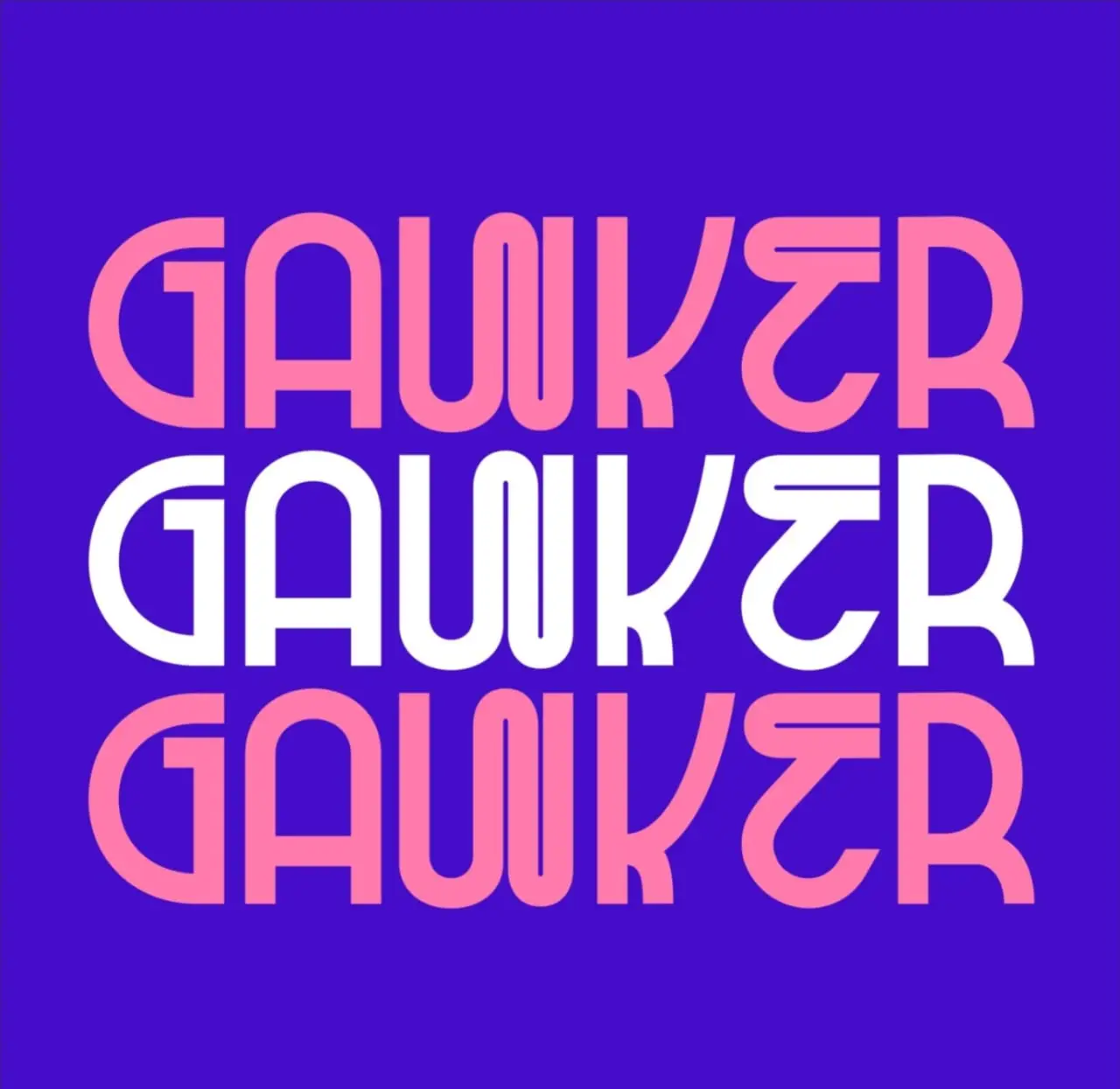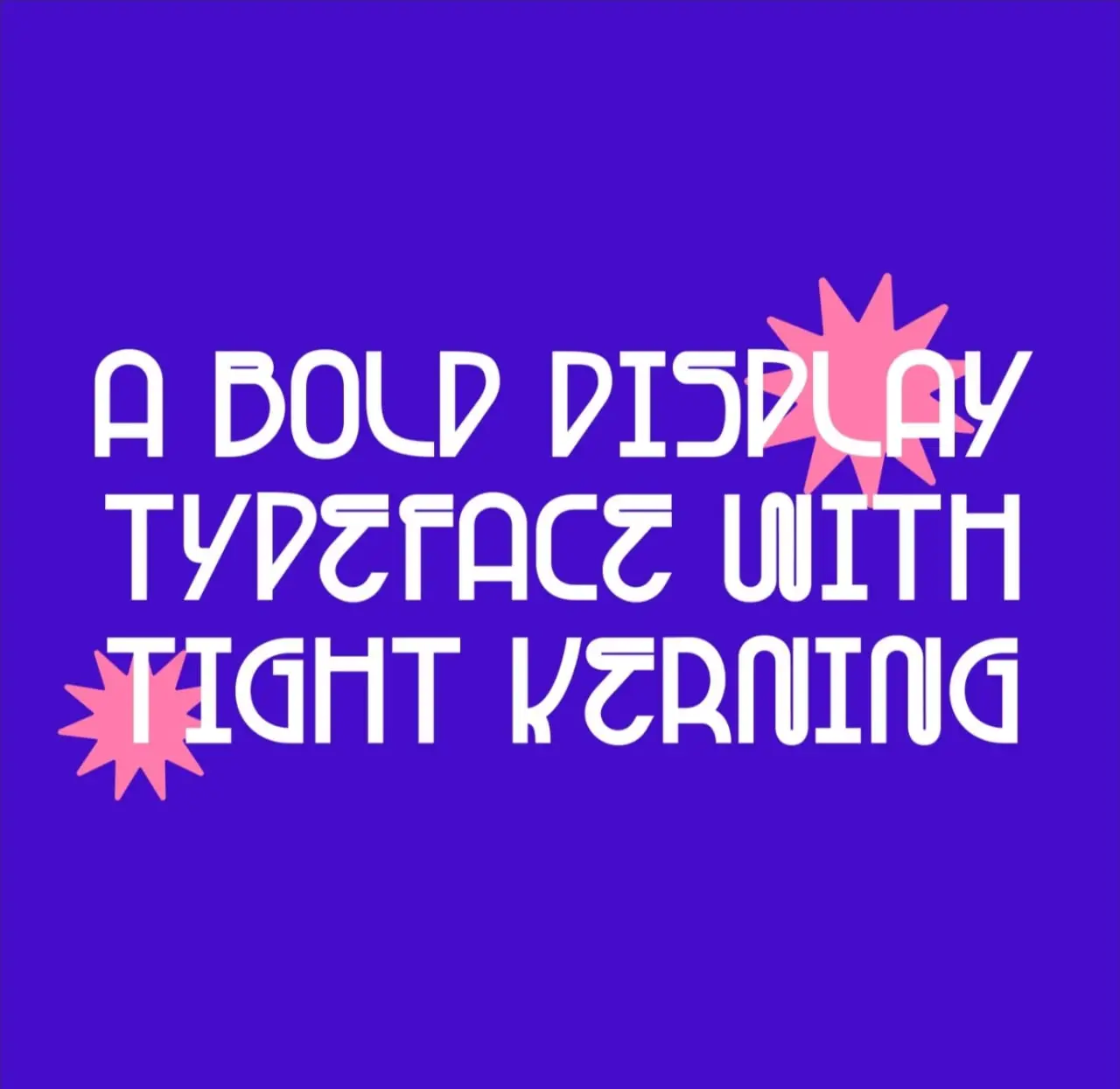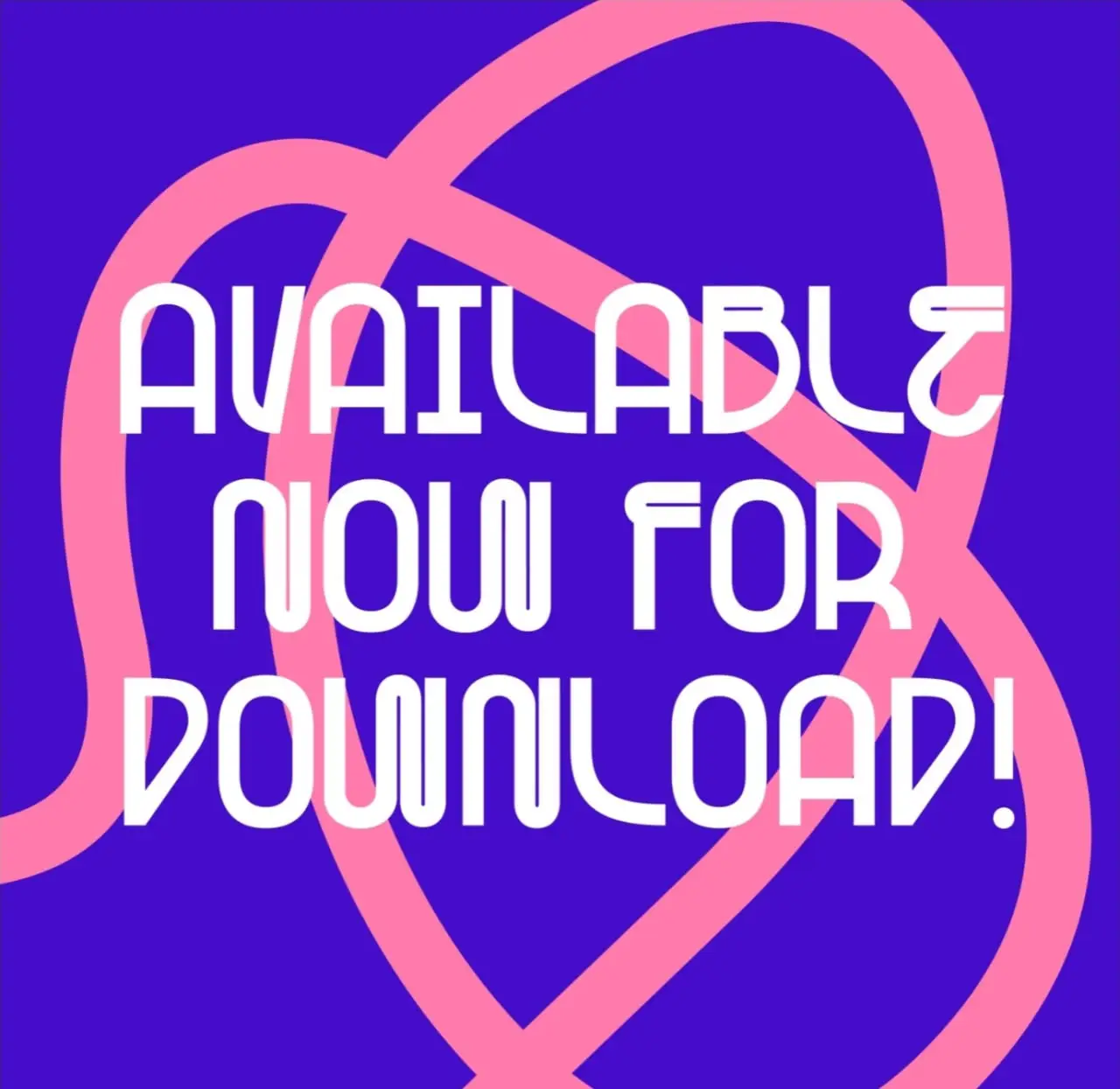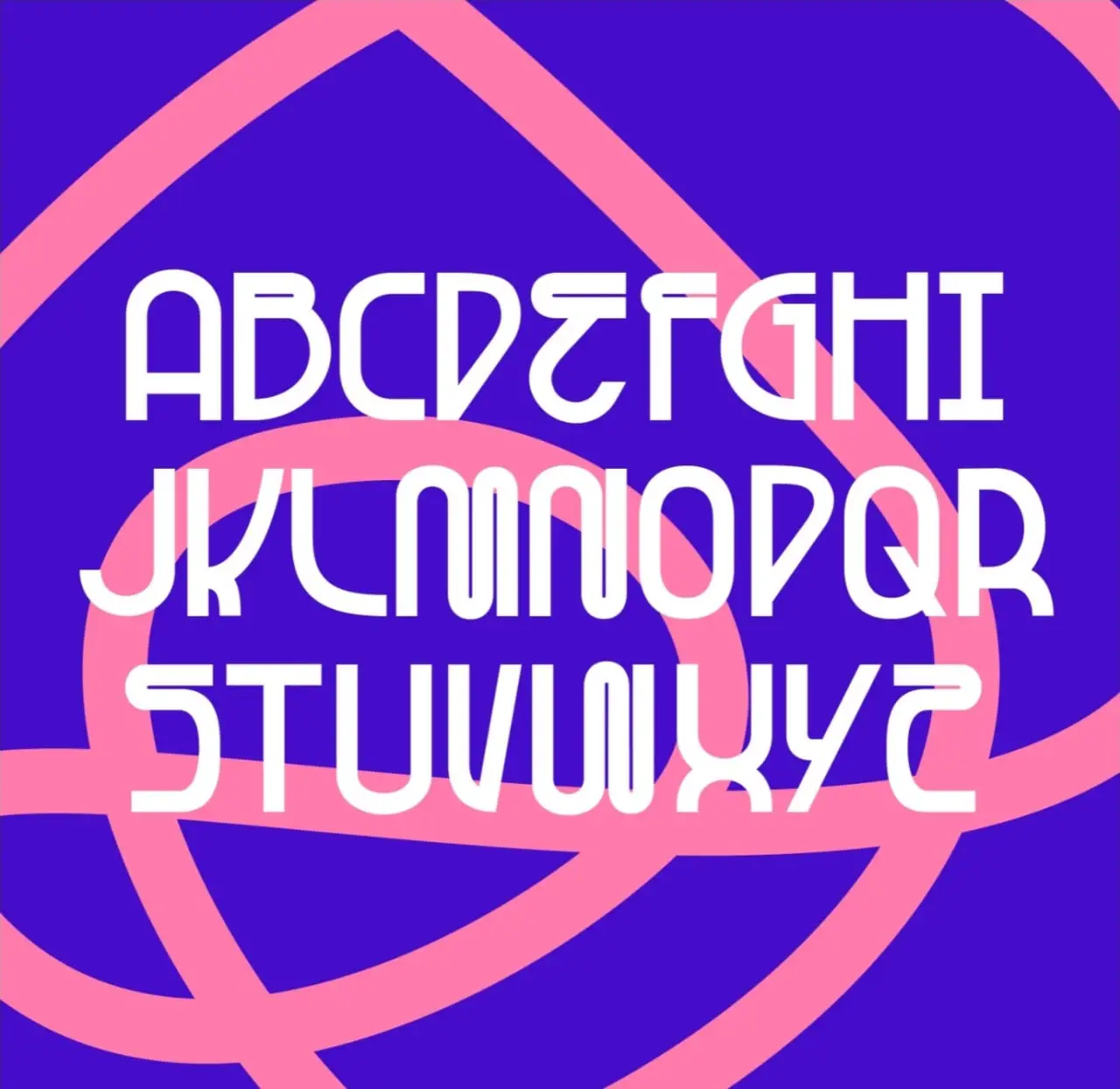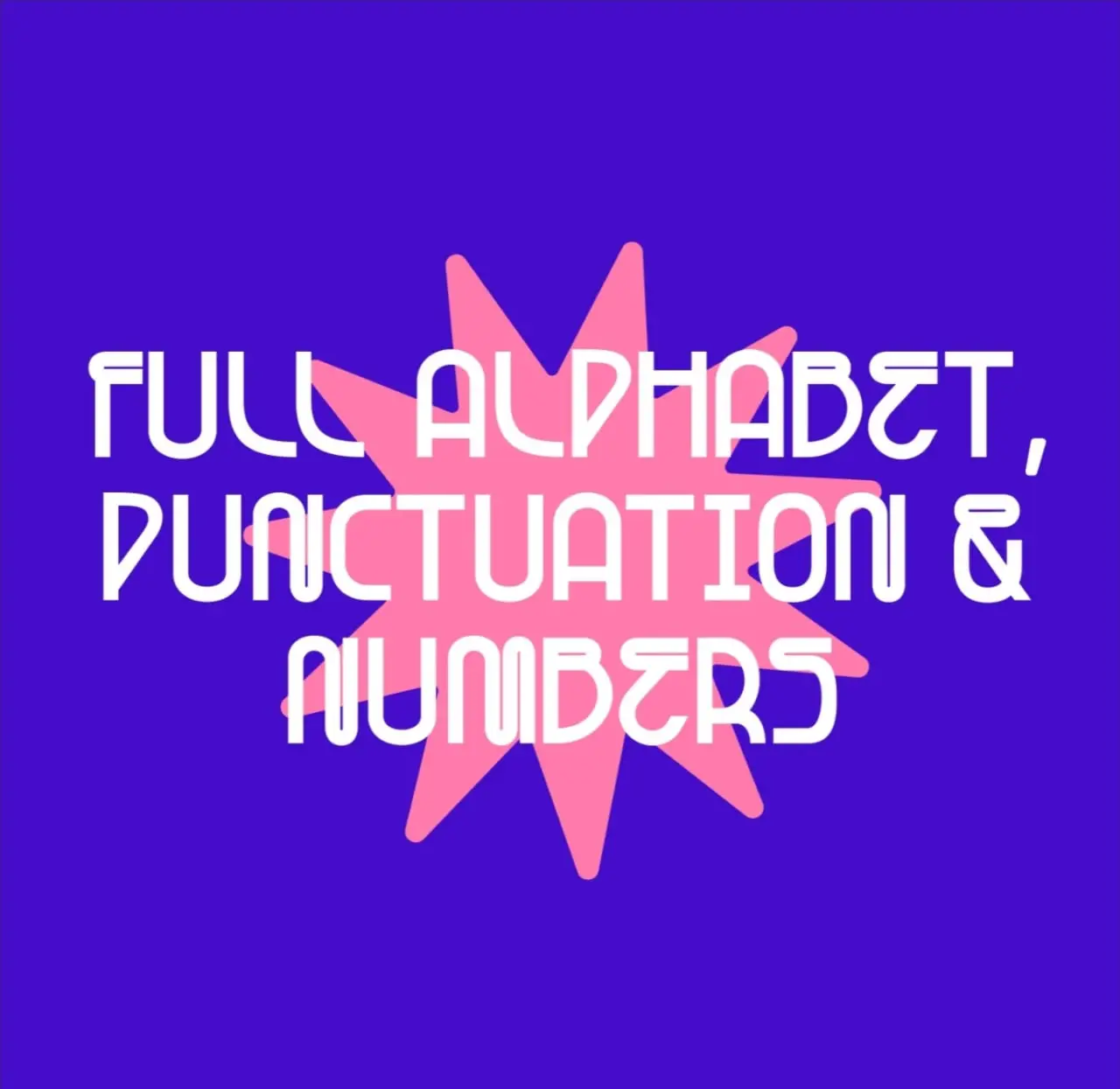
The Gawker Typeface is a modern and versatile font that adds a unique flair to your design projects. With its clean lines and contemporary aesthetic, it’s perfect for both digital and print applications.
- Stylish and modern design
- Multiple weights for flexibility
- Uppercase and lowercase letters
- Numerals and punctuation included
Ideal for branding, logos, web design, and user interfaces. Use Gawker Typeface to create eye-catching headlines, stylish invitations, or engaging social media graphics.